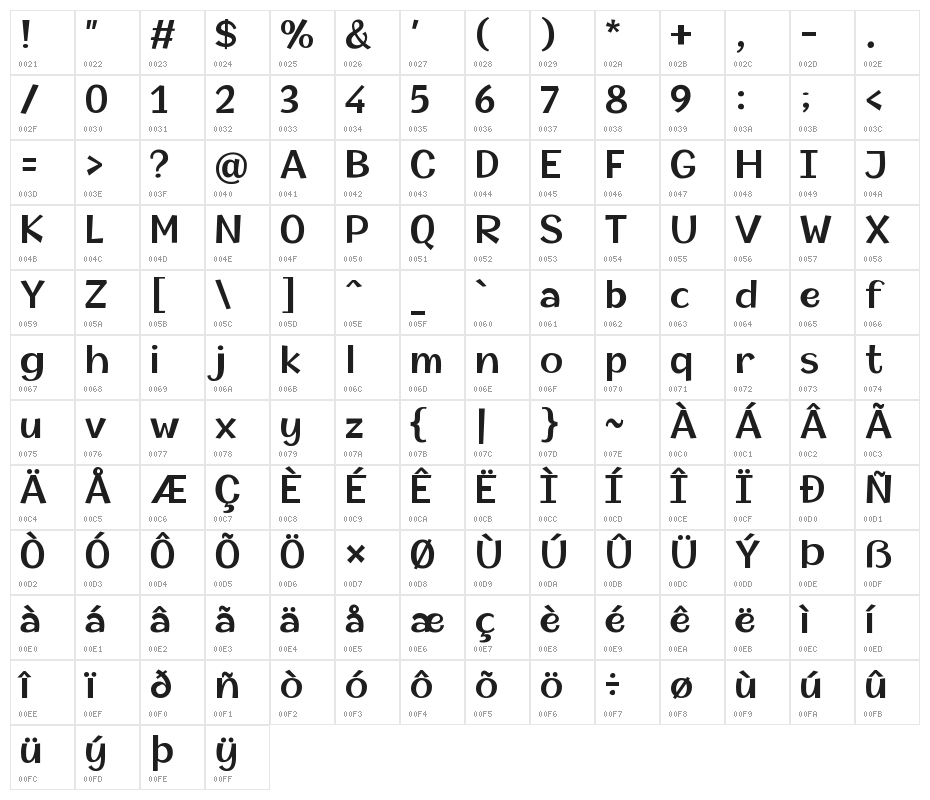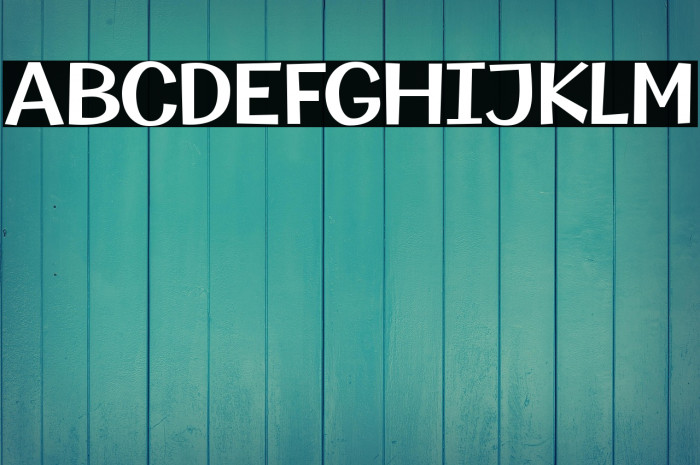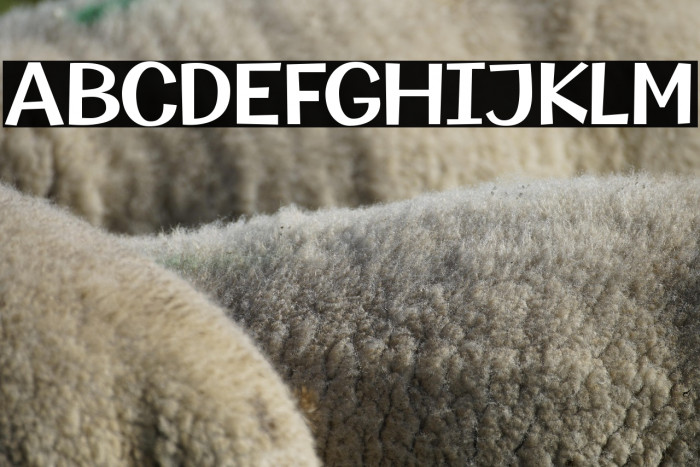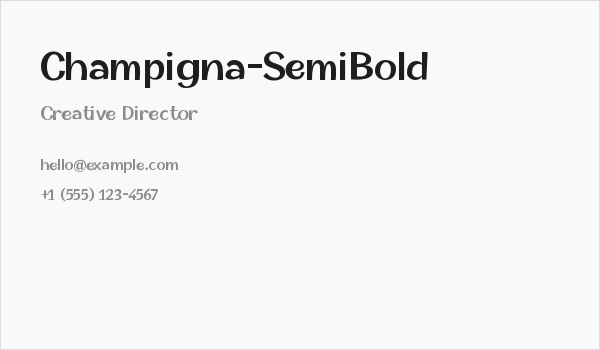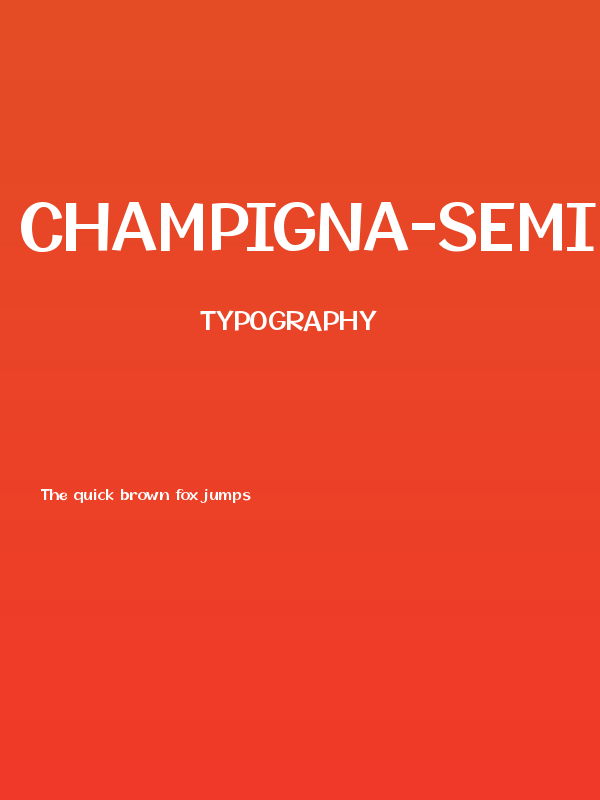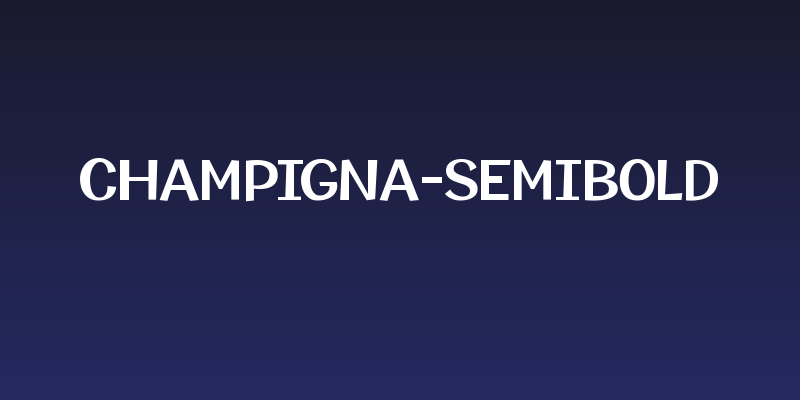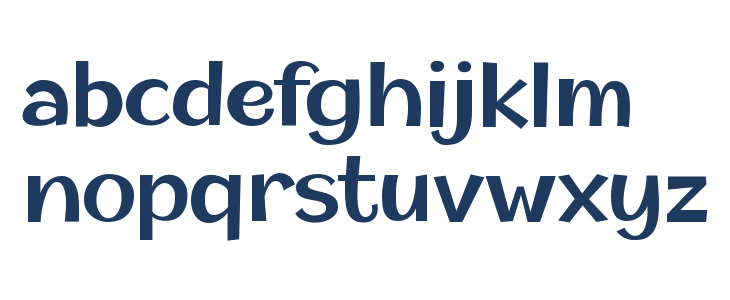
Champigna-SemiBold Font
Champigna-SemiBold Description
This font features a bold and dynamic style with a slightly playful edge. The uppercase letters are strong and assertive, while the lowercase letters maintain a friendly and approachable feel. The numerals are clear and well-defined, making them easy to read. Special characters are designed with a consistent style, ensuring they blend seamlessly with the rest of the font. The overall design is modern and versatile, suitable for a variety of applications. The font's unique character is emphasized by its slightly condensed width and medium contrast in stroke thickness, giving it a distinctive presence.